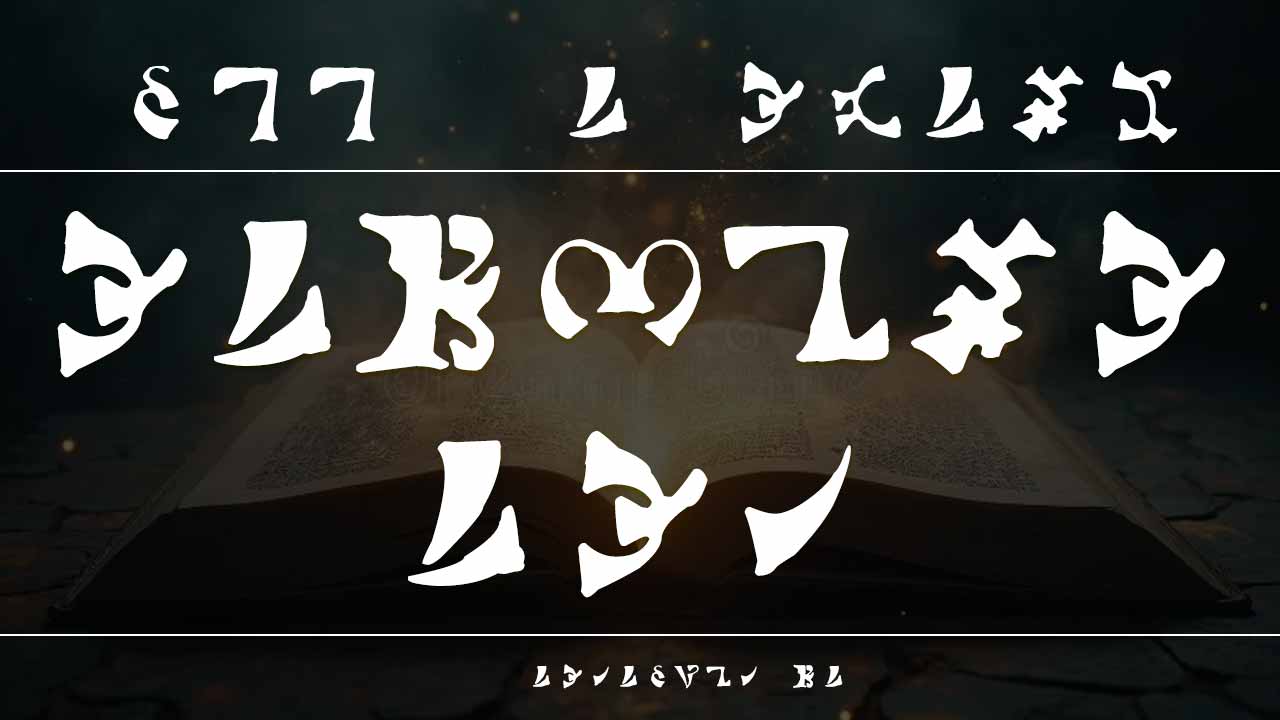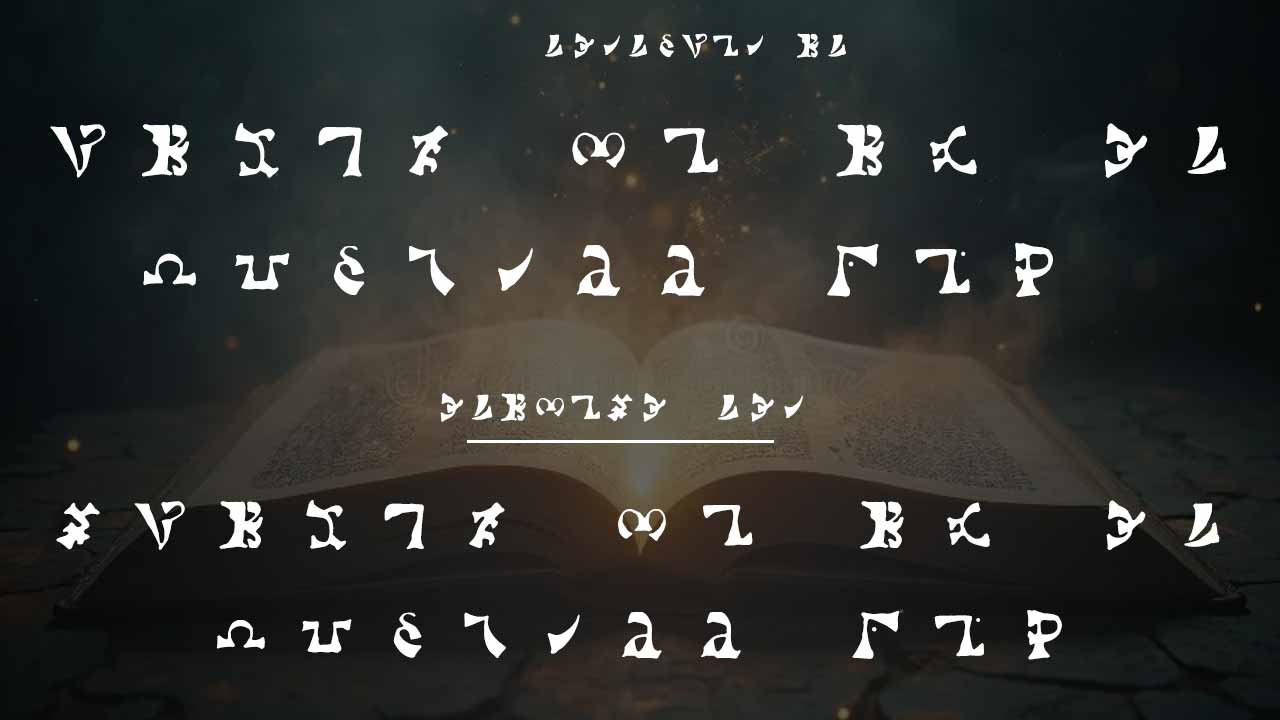
The Enochian Font, designed by Glumbosch, is a unique typeface inspired by the mystical Enochian language. Originally recorded by John Dee and Sir Edward Kelley in late 16th-century England, this symbolic script has fascinated scholars, supernatural enthusiasts, and occult followers for centuries. Whether you’re creating a logo, designing for supernatural fandom, or exploring linguistics, fictional languages, and religious mythology, the Enochian writing style adds a cryptic and eerie touch to any project.
The History Of Enochian Writing
- Created in the 16th century by John Dee and Edward Kelley.
- Believed to be an angelic language received through mystical communication.
- Associated with Queen Elizabeth I’s advisor and alchemy.
- Recorded in works like A Complete Enochian Dictionary.
- Used in ceremonies, supernatural studies, and occult practices.
Enochian Font Family Variants
- Enochian Regular
- Enochian Bold
- Enochian Italic
Enochian fonts come in multiple styles to suit different aesthetic needs. The Enochian Regular version preserves the classical look of the script, making it ideal for historical and academic projects. Enochian Bold offers a more pronounced and eye-catching variation, perfect for designs that require emphasis and dramatic appeal. Enochian Italic adds a dynamic slant to the lettering, giving it a more stylized and elegant flow. These variations ensure versatility in usage, allowing designers to experiment with different effects while maintaining the script’s mystical essence.
Why Use Enochian Font?
1.Unique & Mysterious Design
The Enochian font stands out due to its association with the supernatural and the occult. Its intricate and cryptic appearance makes it an excellent choice for horror-themed projects, tarot card designs, and gothic typography.
The characters resemble ancient runes and secret codes, making them ideal for projects requiring a hidden or coded aesthetic. Whether used in book covers or online media, this font instantly adds a touch of mystery and intrigue.
2.Ideal For Logos & Branding
The Enochian font provides a perfect design element for brands that embrace gothic, mystical, or historical aesthetics. It has been used in logo designs for esoteric shops, spiritual websites, and dark fantasy literature.
Pairing it with modern sans-serif or serif fonts can create a balanced look that merges tradition with contemporary appeal. Businesses related to supernatural themes, alternative healing, or niche fashion brands often utilize this font to craft a strong, memorable brand identity.
3.Great For Fiction & Gaming
Storytellers and game designers frequently incorporate Enochian fonts into their works to enhance immersion and world-building. Whether for fantasy RPGs, horror adventures, or supernatural thrillers, this typeface adds authenticity and depth to fictional narratives.
Some video games include secret Enochian inscriptions as hidden messages, adding an extra mystique for players to decode. Writers crafting elaborate myths and legends also use this font to give their manuscripts an ancient, otherworldly appeal.
4.Versatile For Digital Art & Websites
Digital artists and web designers often seek fonts that stand out and convey a unique atmosphere. The Enochian font is compatible with various design software, making it easy to integrate into websites, banners, and social media graphics.
5.Academic & Historical Significance
Beyond its aesthetic appeal, the Enochian script holds historical and academic value. Scholars of medieval history, esotericism, and ancient languages utilize the font for research and documentation.
The study of Enochian writing provides insights into Renaissance-era beliefs, alchemy, and early attempts at deciphering divine communication. The font is an educational tool for those looking to explore the linguistic and symbolic elements of Dee and Kelley’s work.
- Theban Alphabet – Used in occult symbolism.
- Celestial Alphabet – Inspired by angelic writing.
- Runic Typeface – Traditional Western font.
- Solomonic Symbols – Mystical and esoteric design.
8.Can I Create My Own Enochian Text?
Yes! Using a Complete Enochian Dictionary, you can construct your own Enochian writing for creative or research purposes. Many designers and writers incorporate Enochian text into fantasy books, movie scripts, and occult studies.